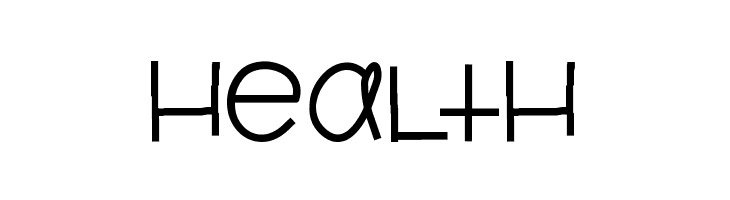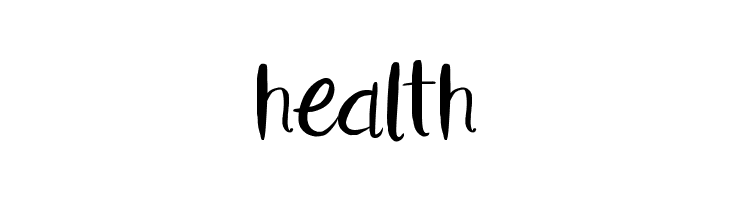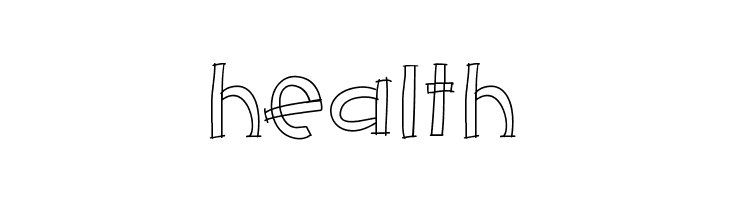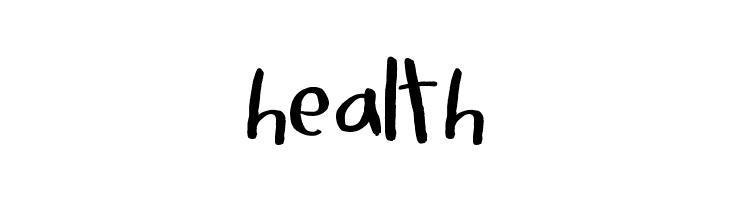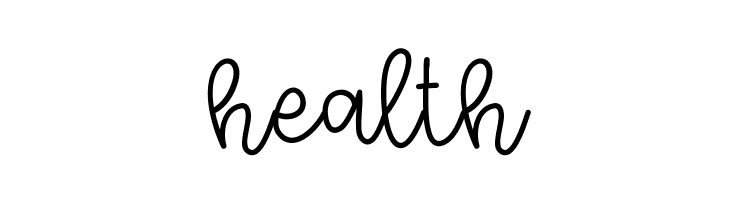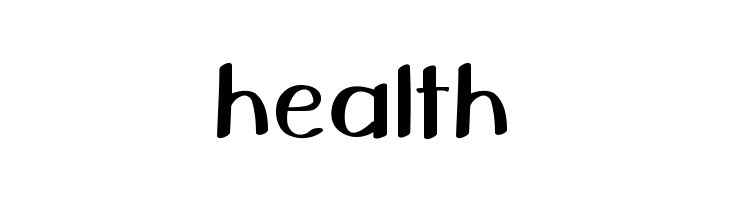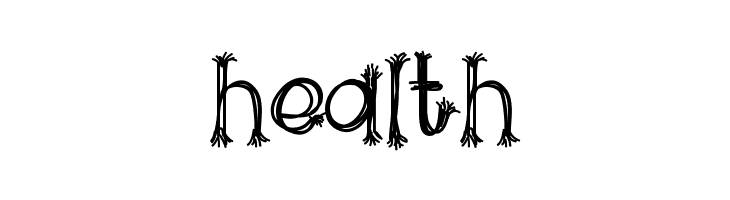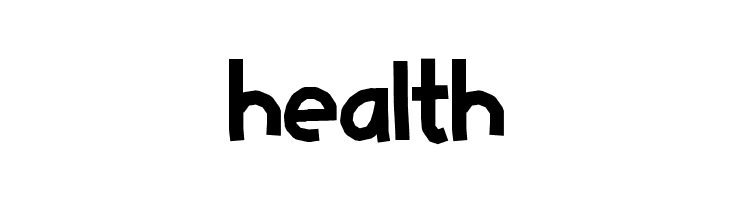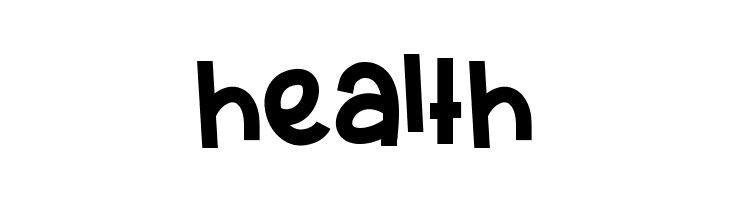
A playful, hand-drawn style font with rounded, childlike characters.
A playful, hand-drawn font with dynamic strokes and a whimsical feel.
A playful, hand-drawn font with a sketch-like, double-line design.
A playful, handwritten font with bold, irregular strokes.
A playful, handwritten font with flowing, cursive-like letters and a whimsical style.
A playful, handwritten font with bold, rounded characters.
A whimsical, hand-drawn font with a scarecrow theme, featuring straw-like elements.
A bold, playful font with a hand-drawn, modern style.
A playful, bold, and hand-drawn style font with a whimsical touch.